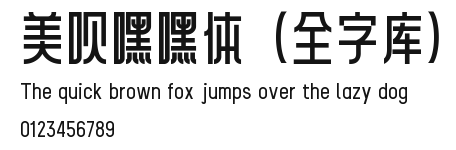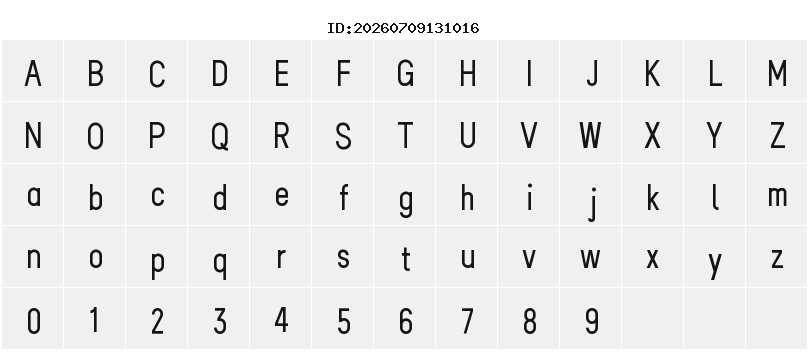
美呗嘿嘿体(全字库) Preview
• Font Name: 美呗嘿嘿体(全字库)
• Full Font Name: MEBheiheiti
• PostScript Name: MEBheiheiti
• Designer: 美呗设计中心
• Manufacturer: 成都美尔贝科技股份有限公司
About 美呗嘿嘿体(全字库).ttf
美呗嘿嘿体(全字库).ttf is a modern, elegant sans-serif font designed for ultimate readability and visual harmony. Perfect for branding, headlines, web design, and print materials.